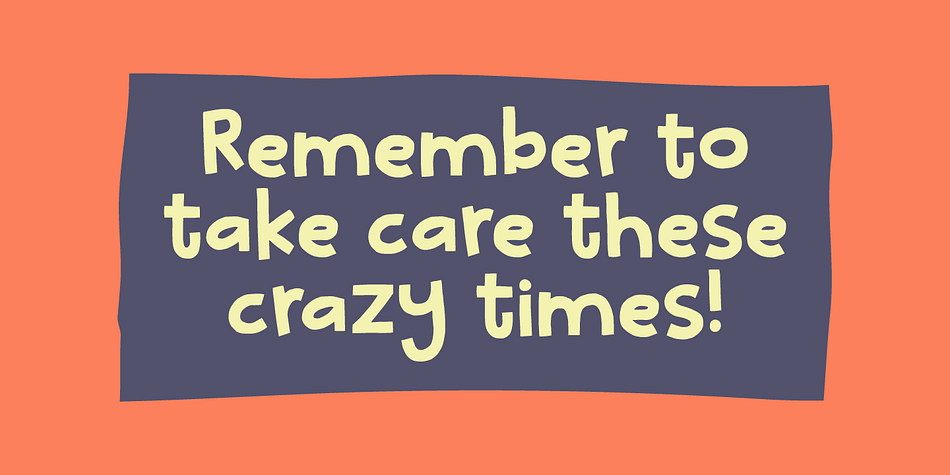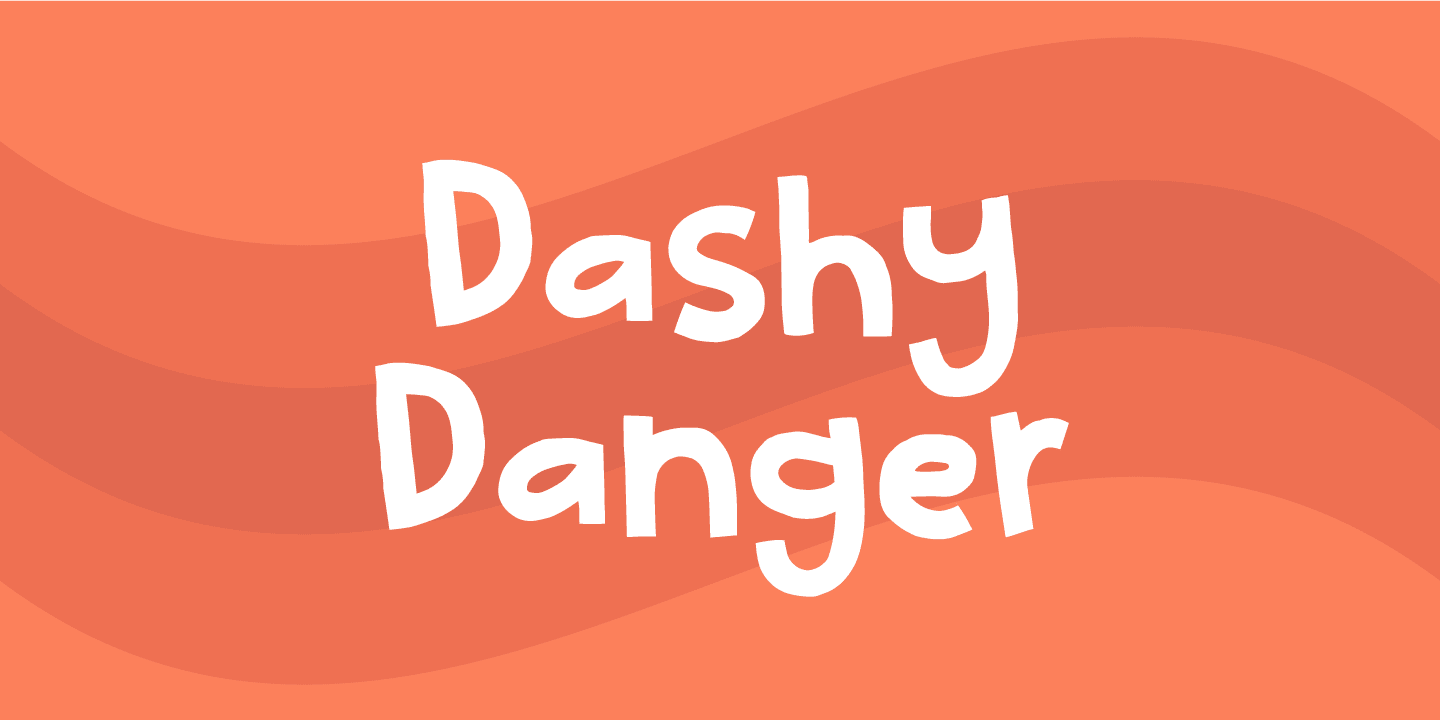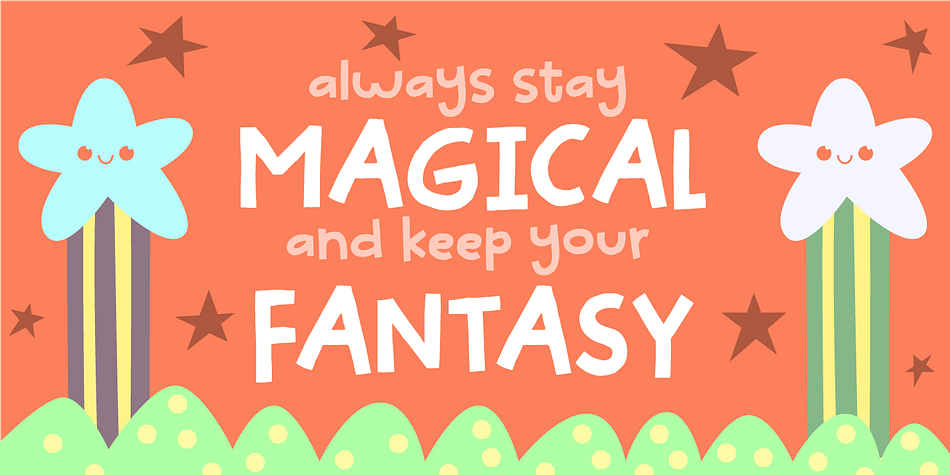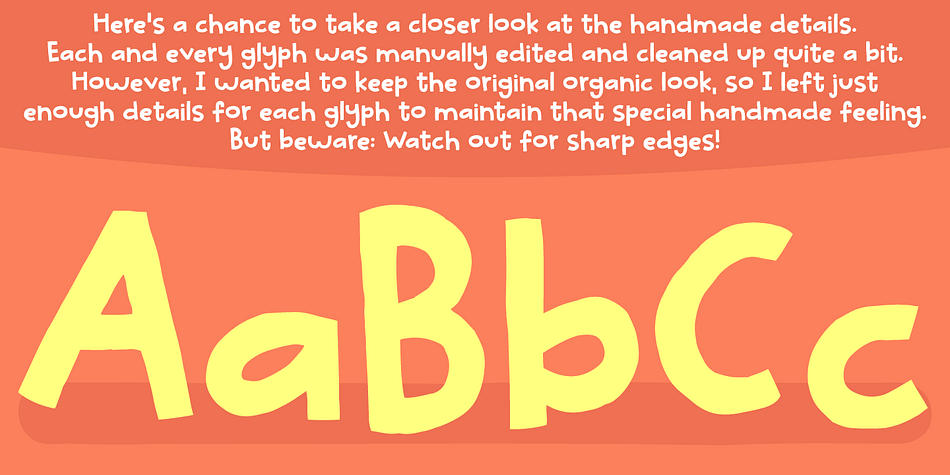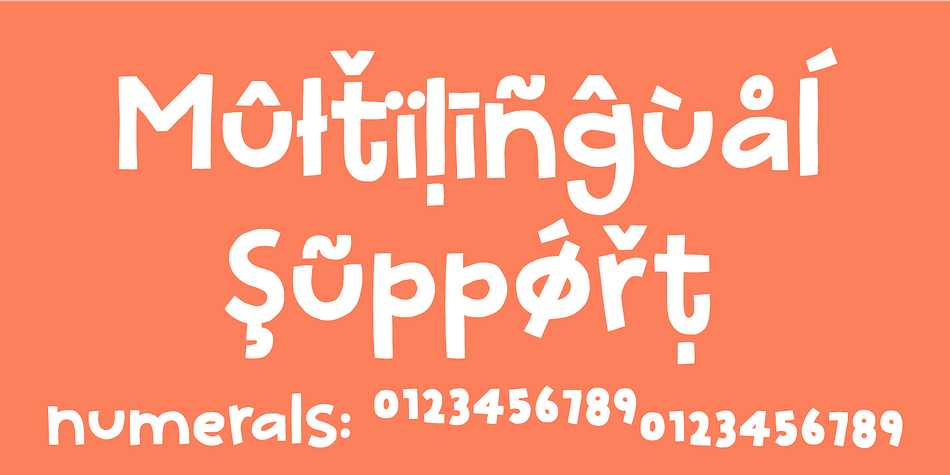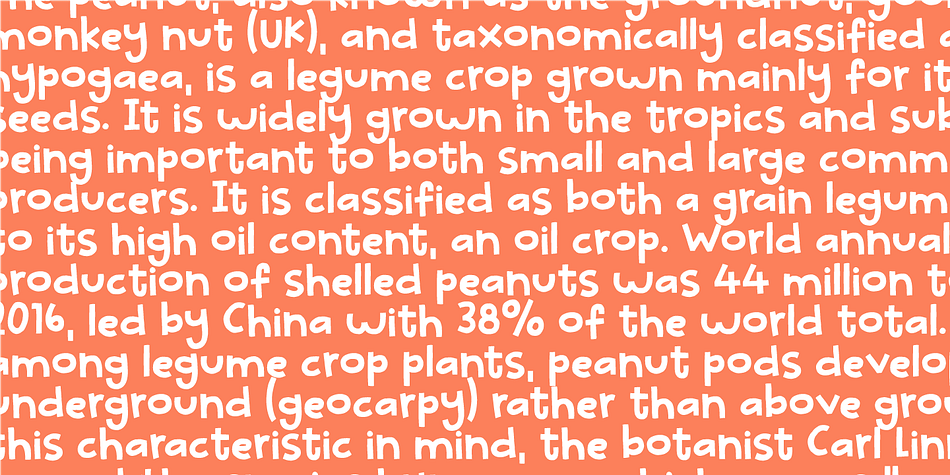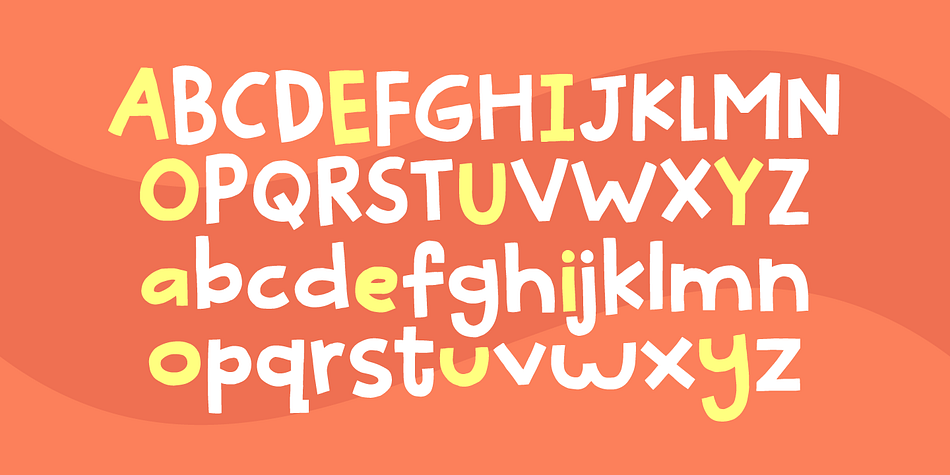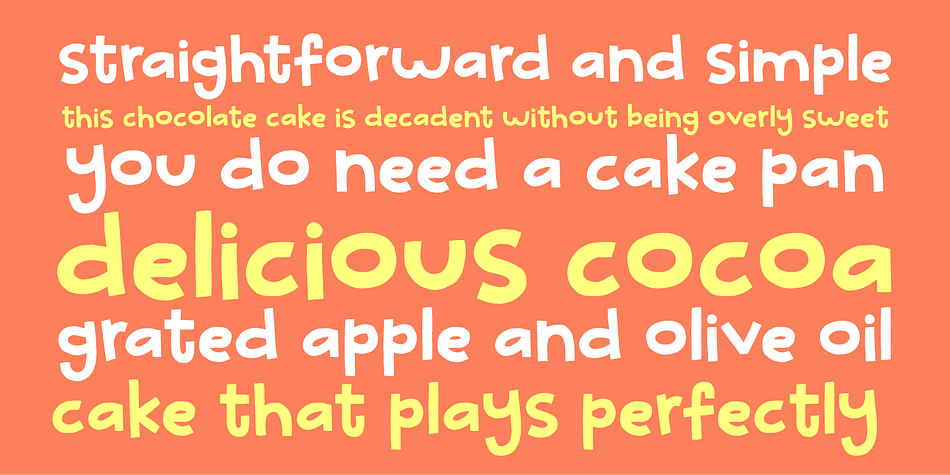
Designed by Jakob Fischer, Dashy Danger is a hand display, hand drawn and kids font family. This typeface has two styles and was published by Bogstav.
There is nothing dangerous about this font, but indeed something dashy!
That may not make much sense, and that’s the same with the font - unless you want to do something eye-catching and organic looking for kids!
Dashy Danger is my laid back, kinda wild, legible but unpredictable kids font - with an organic twist!